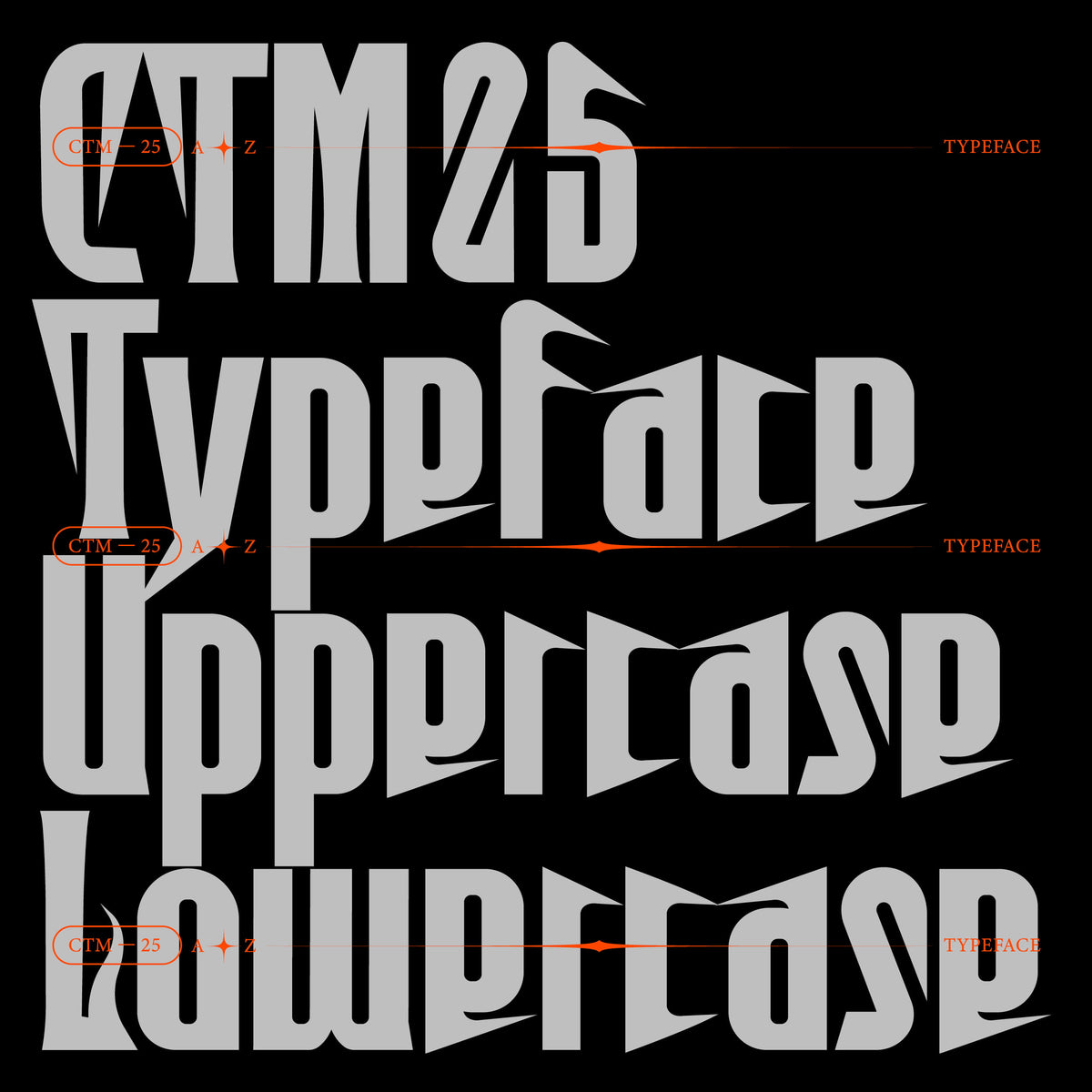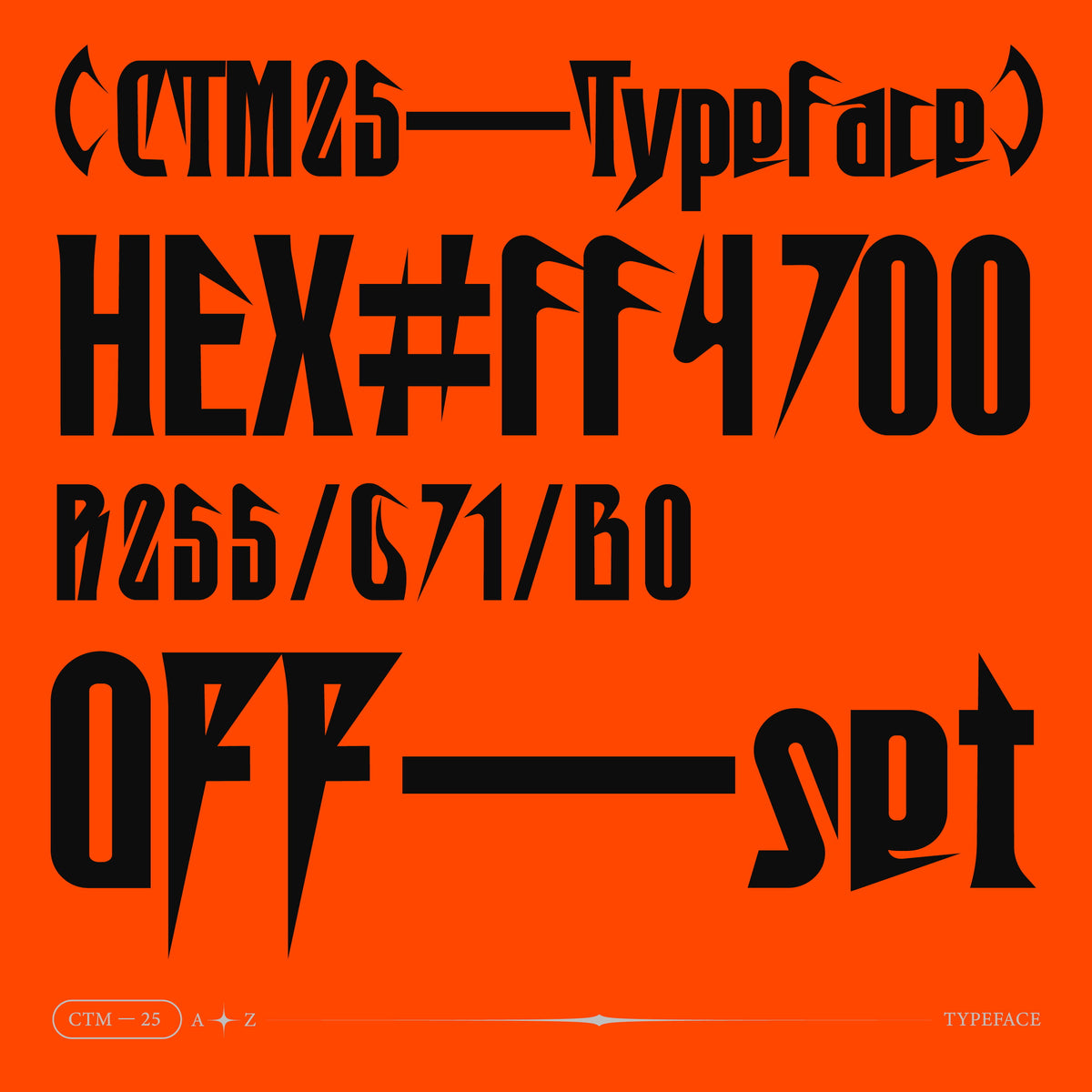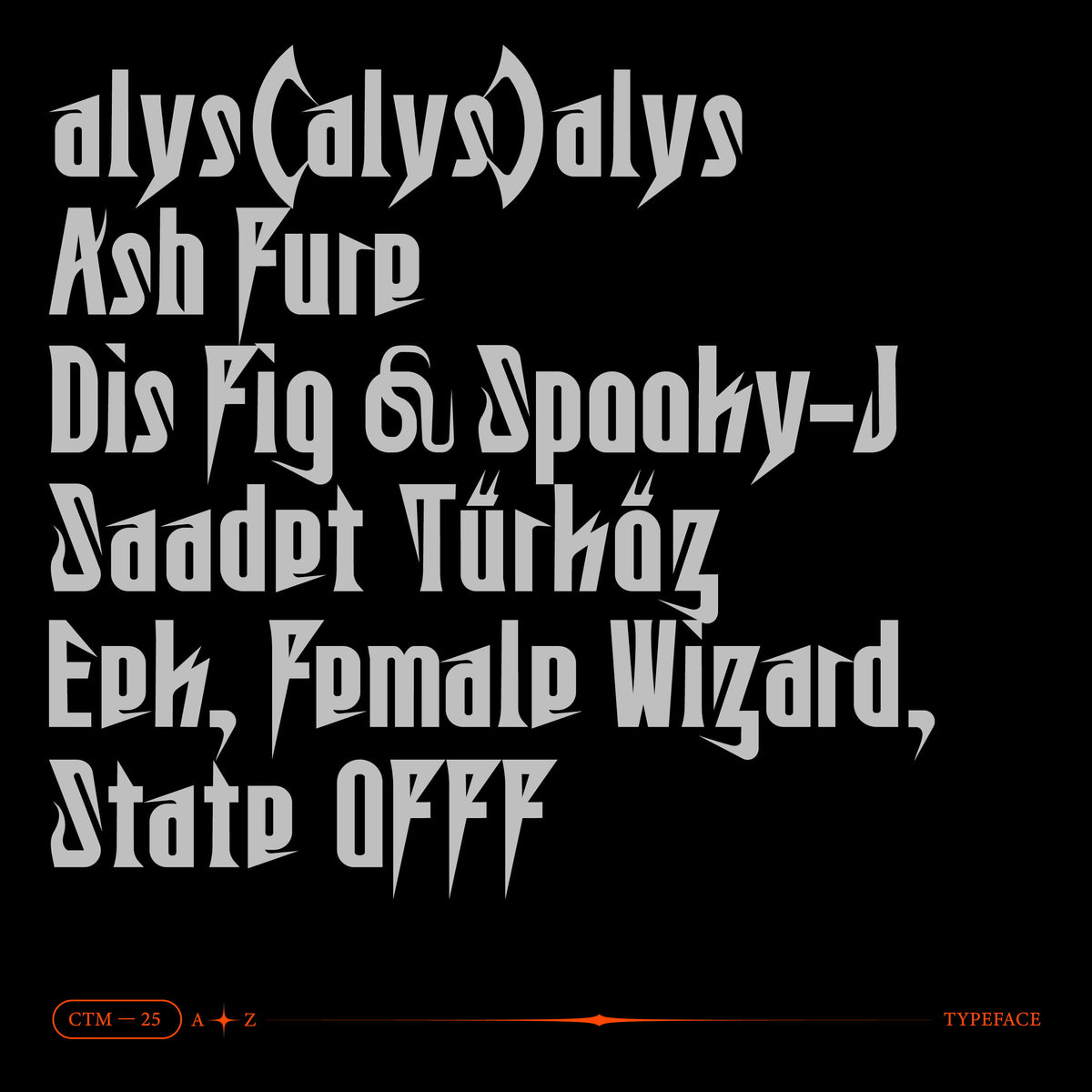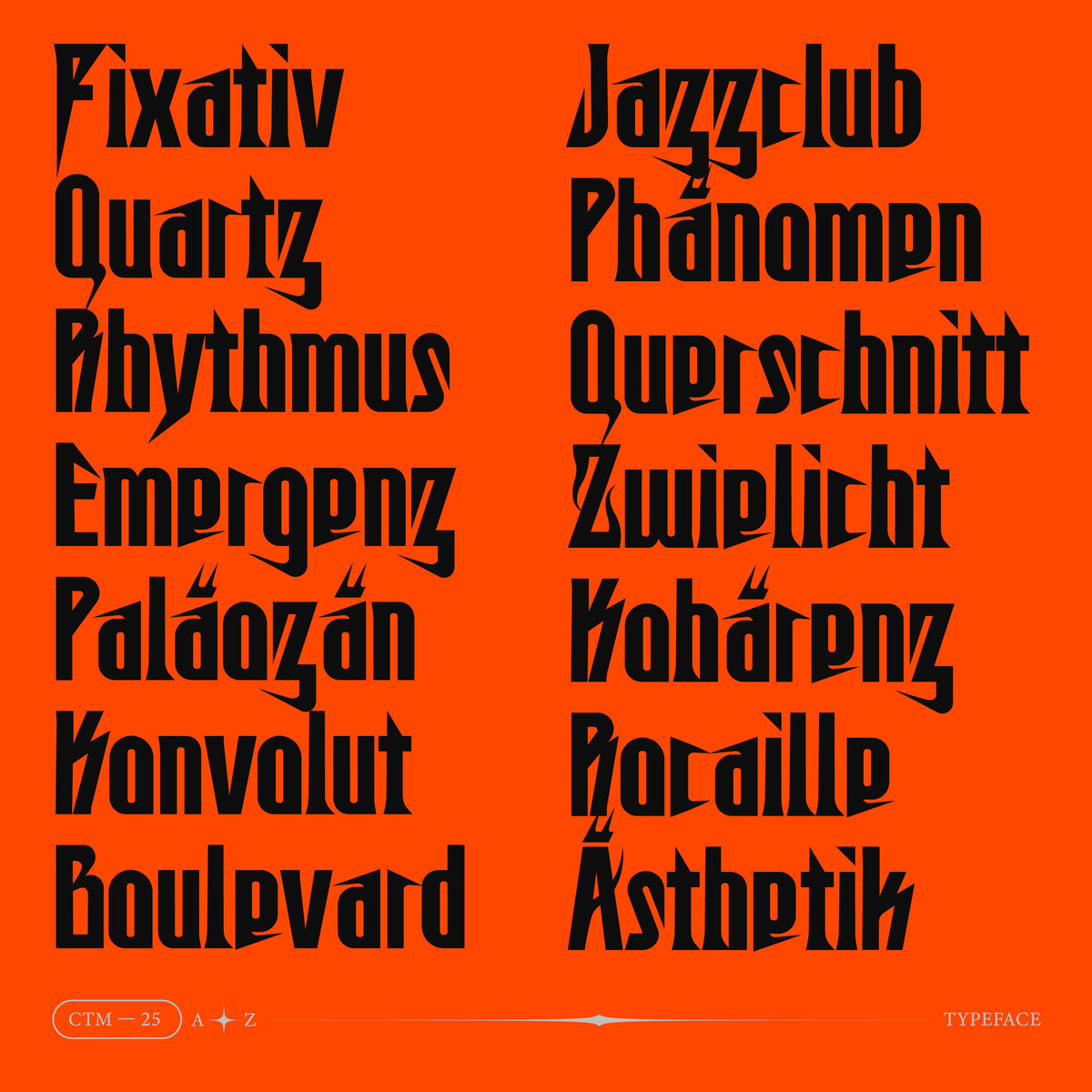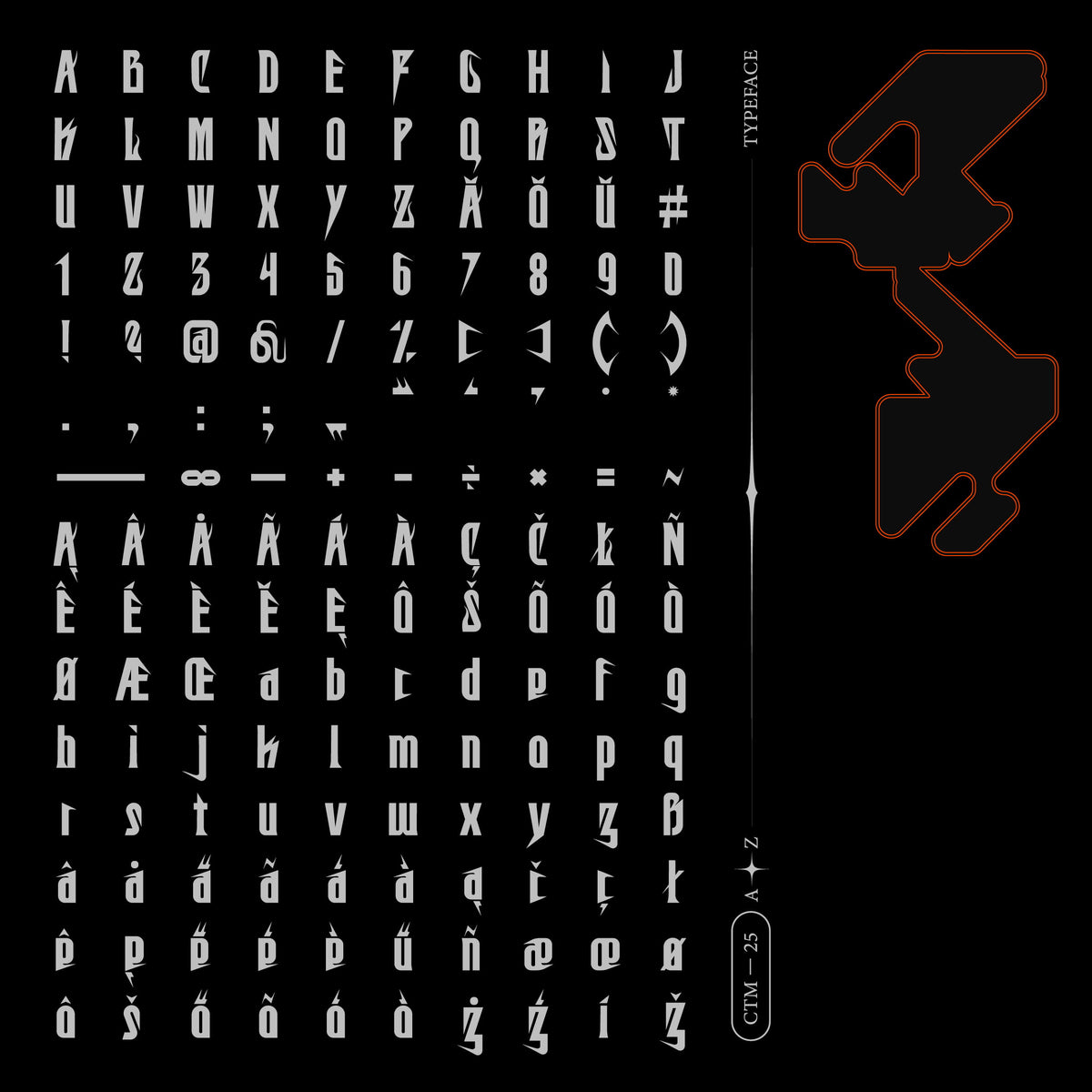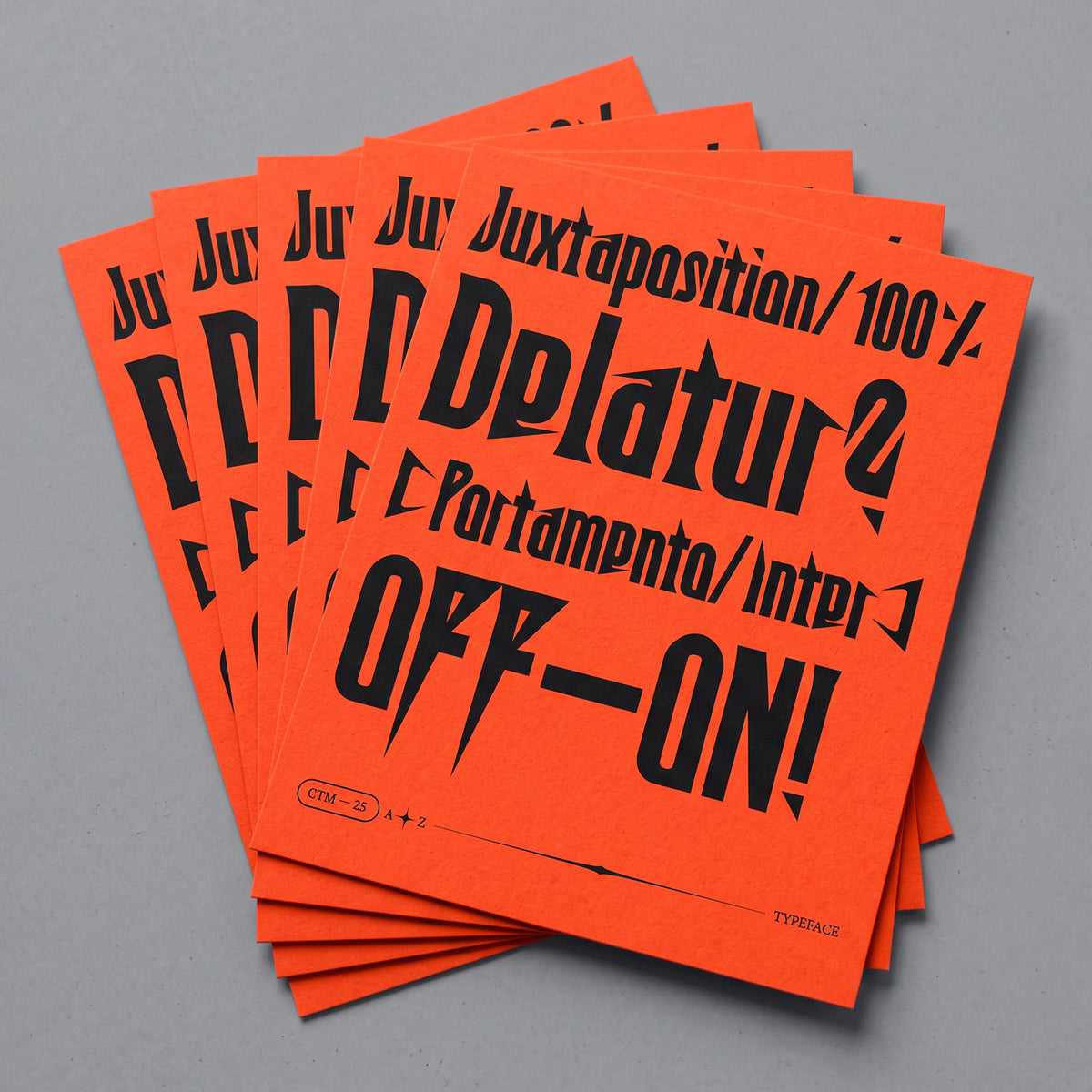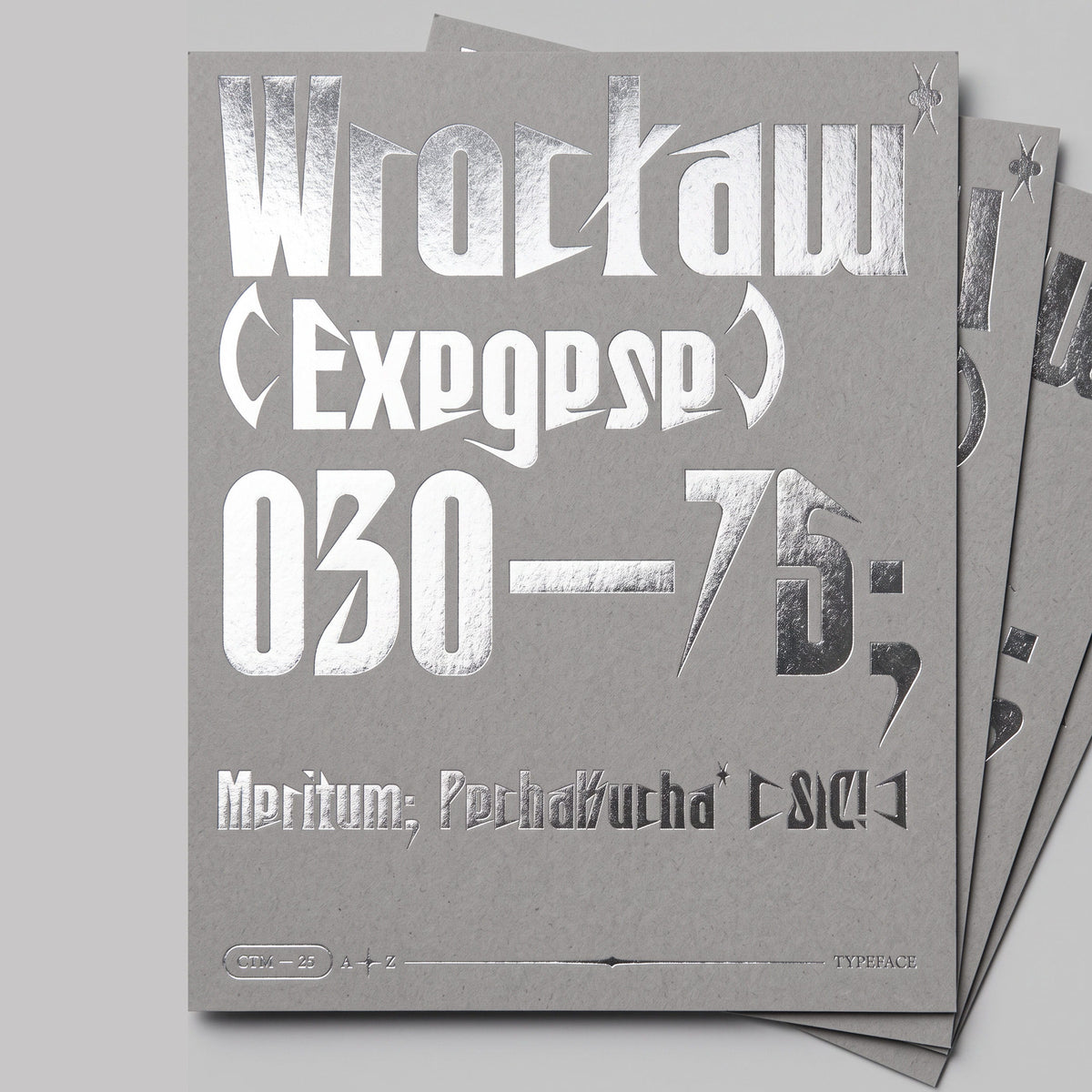
CTM25 Typeface
CTM25 is a bold condensed blackletter display typeface that bridges gothic typography and contemporary visual culture. Tall capitals, compressed letterforms, and razor-sharp diagonal cuts define its character — creating a typeface that carries the weight of historical blackletter tradition while feeling entirely current in execution.
The distinctive spur details and high-contrast stroke structure give CTM25 an immediate visual authority at display scale. It reads as both dramatic and precise — equally at home in music branding, cultural identities, editorial titles, streetwear, and any project that demands a strong typographic statement without falling back on convention.
The full character set covers uppercase, lowercase, numbers, punctuation, and extended multilingual support — making CTM25 a practical choice for international projects alongside its expressive display qualities.
• 148 Glyphs
• 2 Styles (Regular, Italic)
• Lowercase
• Diacritics